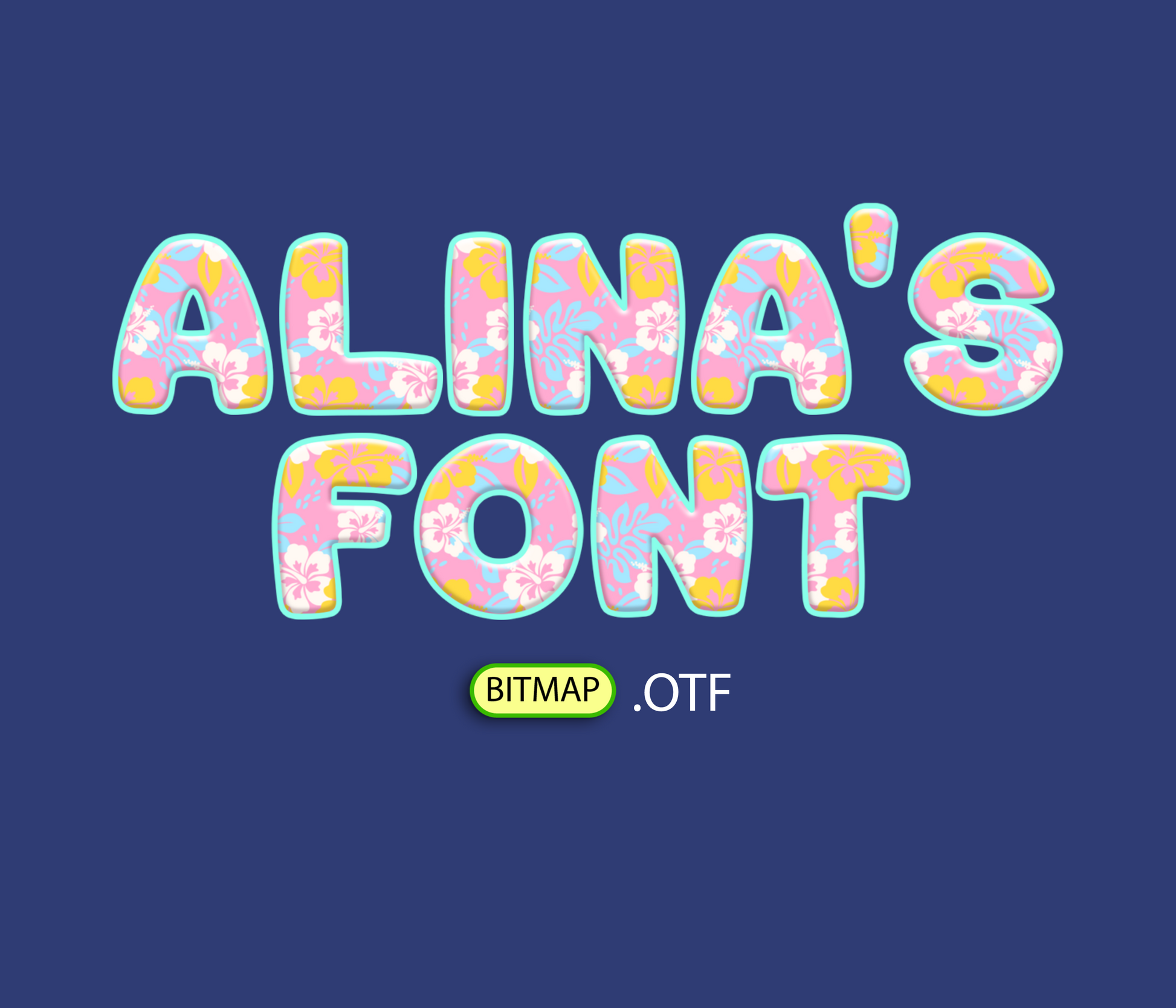
Aloha Breeze Typeface Textured
Dive into the enchanting realm of Pacific islands with our Aloha Breeze Typeface, embodying the soul of volcanic landscapes and turquoise waters. Designed for hospitality ventures, island-inspired brands, event coordinators, and design enthusiasts, this font channels the serene, exotic atmosphere of trade winds and coral reefs into your creative work. Craft captivating displays, beach-themed merchandise, or online content with the laid-back, tropical essence of hibiscus blooms and coconut groves.
Our Aloha Breeze Typeface showcases organic, surf-inspired curves and cheerful letterforms that mirror the carefree yet sophisticated spirit of Polynesian culture. Perfect for:
- Hospitality Industry: Develop striking branding, menus, and marketing collateral for beach resorts, tiki bars, and island dining establishments
- Event Planning: Excellent for luau invitations, tropical wedding stationery, and celebration materials that capture the magic of sunset ceremonies
- Web Design: Elevate online platforms, newsletters, and social campaigns with vibrant typography that radiates warmth and escapism
- Tourism Marketing: Infuse genuine island character into travel magazines, adventure brochures, and promotional content for exotic destinations
- Creative Endeavors: Add Pacific charm to scrapbooking, handmade crafts, and interior design projects inspired by coastal retreats
Our Aloha Breeze Typeface provides both textured and clean variations, guaranteeing smooth functionality across all design platforms, including Canva. This versatility enables effortless integration for creators at every experience level.